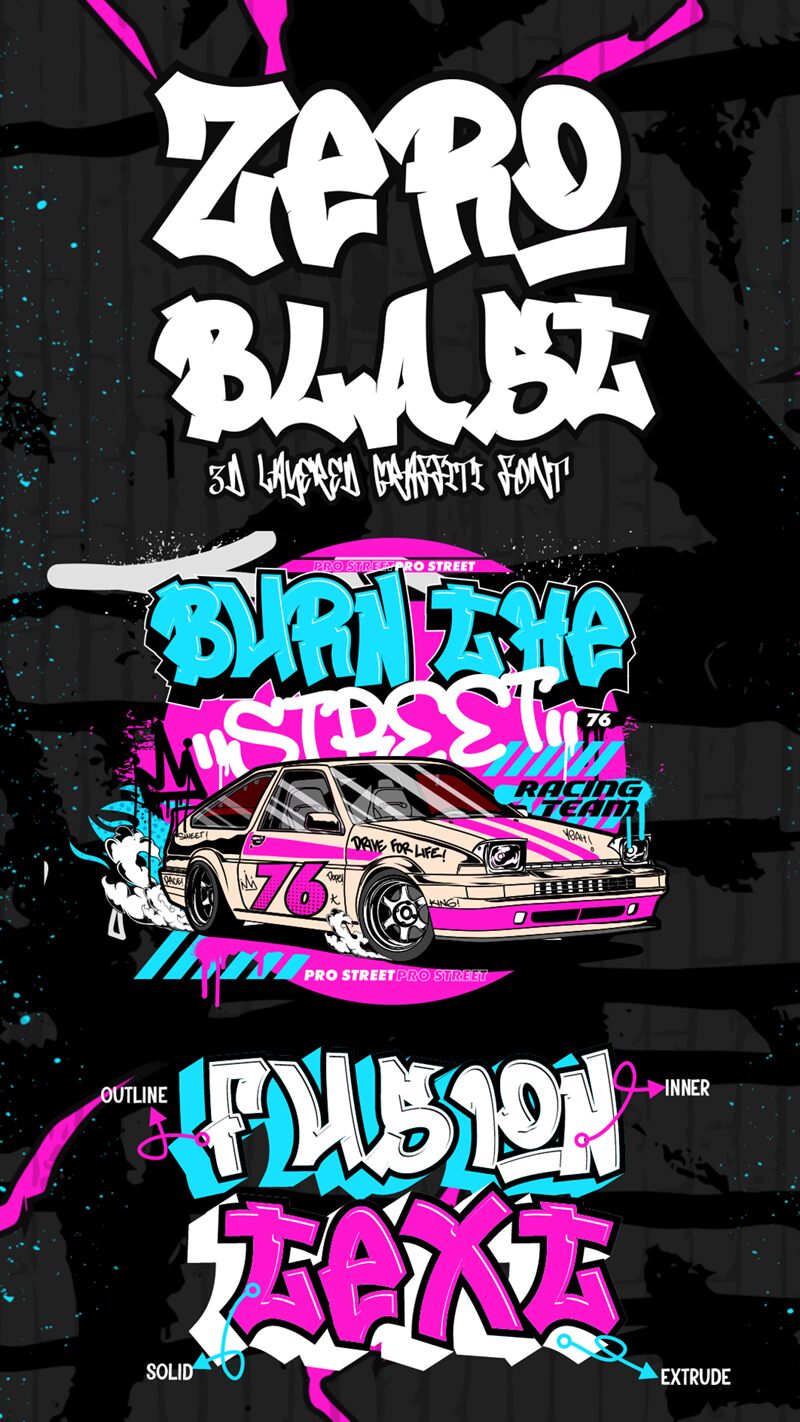
Zero Blast font family by Cikareotype Studio is a dynamic and energetic graffiti-inspired typeface available as a free font family. Instantly recognizable for a contemporary aesthetic often preferred in urban projects, Zero Blast can provide a fresh look to your creative projects. Although available in multiple styles, each individual font comes with expressive and edgy characters ideal for adding a unique, youthful, and rebellious touch. These characteristics are further seen in some of the street culture-style details in its appearance.
Essentially a display font family, this graffiti font family would work well for your brand’s logotype, band’s promotional posters and flyers, business cards, packaging, or album artworks. It can be used for book cover designs, clothing brands, fashion magazines, and websites or apps related to art, music, and culture. Treat it to be part of a headline and perhaps add body copy in a more readable decorative or simple font when pairing it with others.